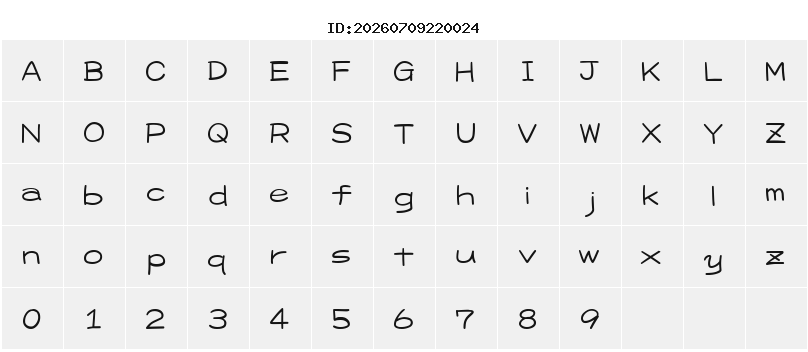
DD BRILLIANT2UAlp Preview
• Font Name: DD BRILLIANT2UAlp
• Full Font Name: DD BRILLIANT2UAlp
About DD BRILLIANT2UAlp.ttf
DD BRILLIANT2UAlp.ttf is a modern, elegant sans-serif font designed for ultimate readability and visual harmony. Perfect for branding, headlines, web design, and print materials.